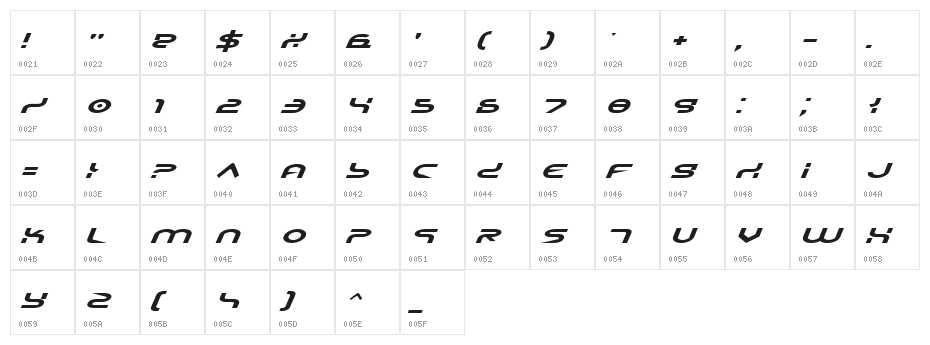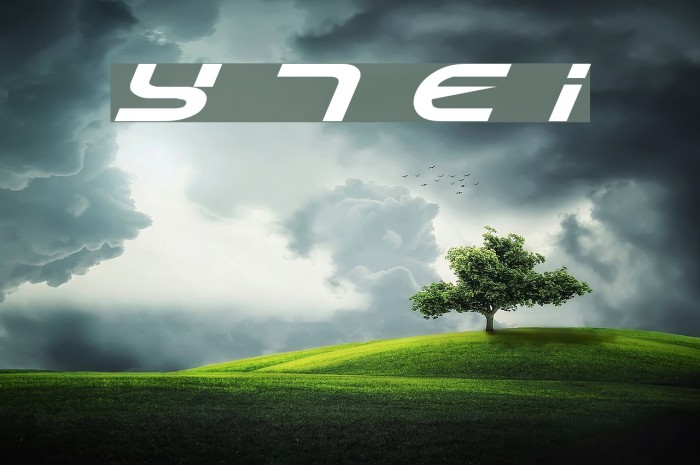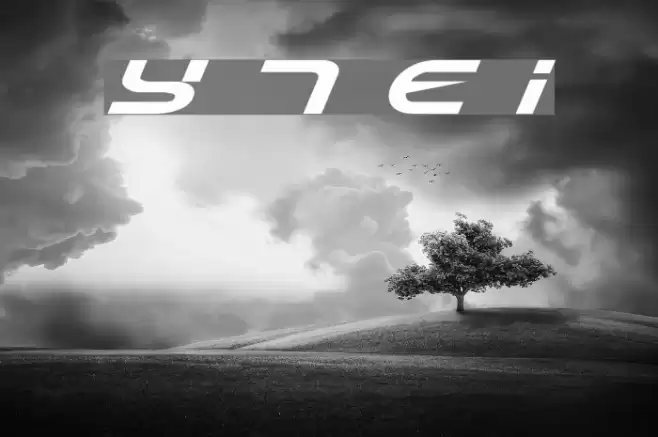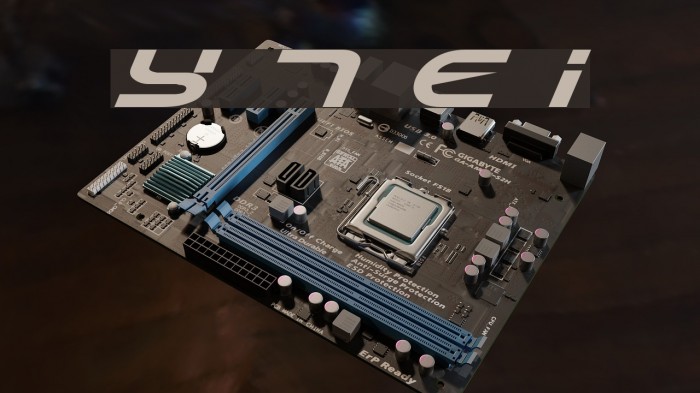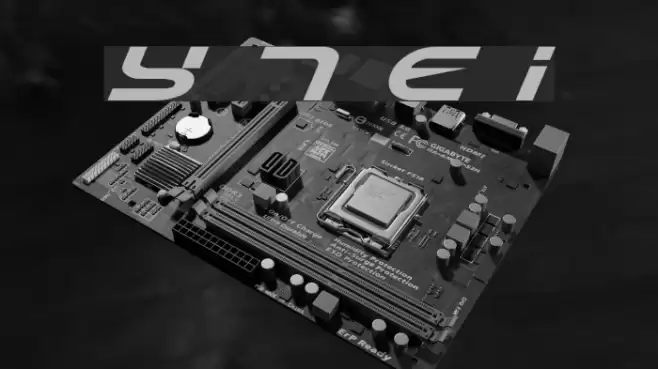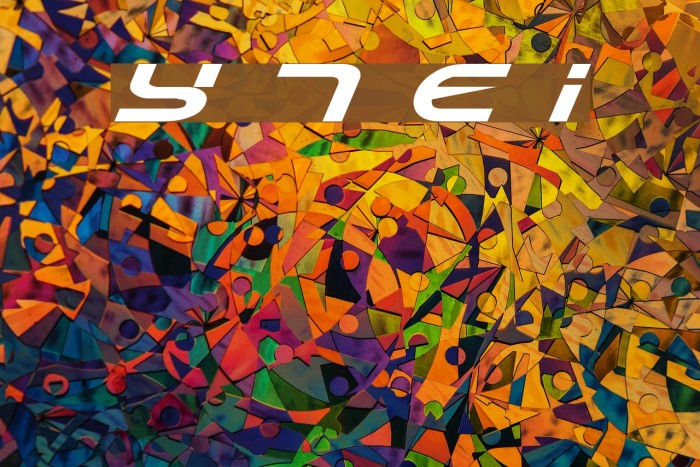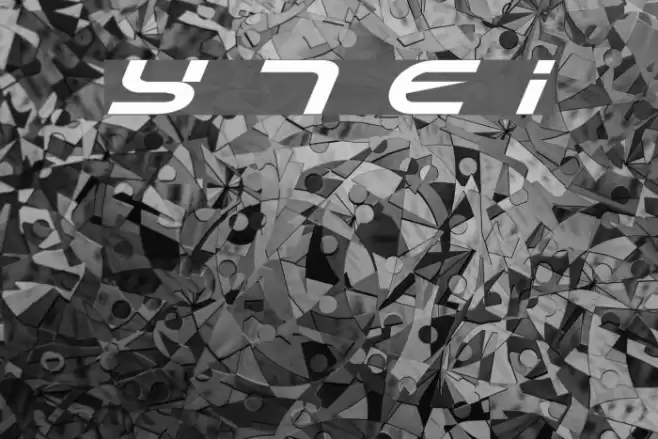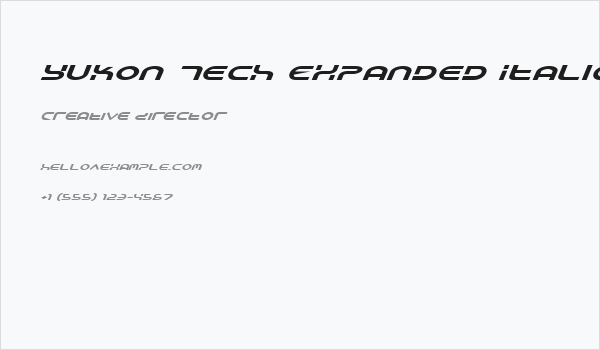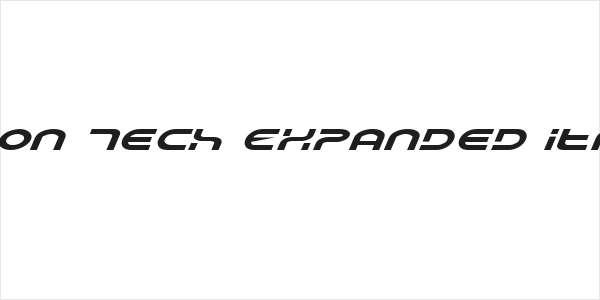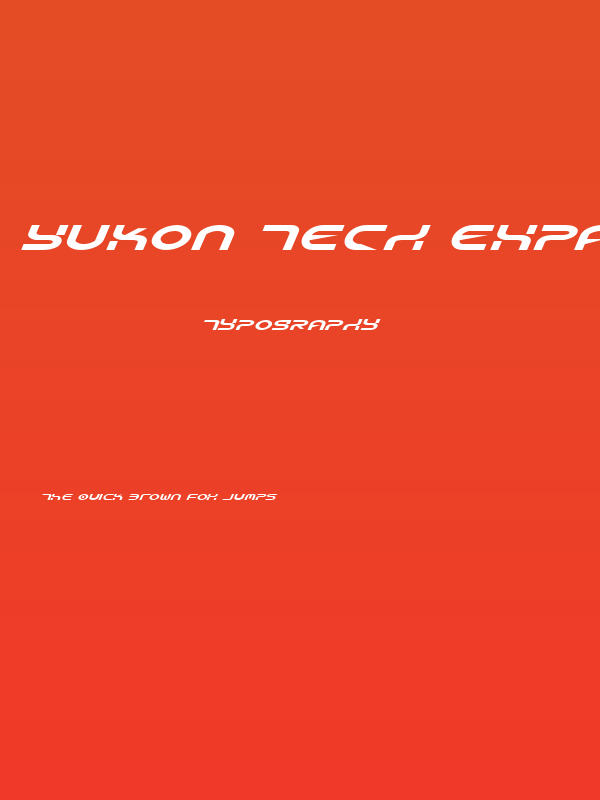
Yukon Tech Expanded Italic Font
Yukon Tech Expanded Italic Description
This font features a futuristic and dynamic design with a distinctly italicized and expanded style. The characters are sleek and angular, giving a sense of motion and speed. The uppercase and lowercase letters maintain a consistent slant, enhancing the italic effect. The numbers and special characters follow the same design principles, ensuring uniformity across all glyphs. The overall appearance is modern and tech-inspired, making it suitable for projects that require a cutting-edge and innovative look.
| Proposed Projects | Ideal for technology branding, sci-fi themed designs, video game interfaces, and modern advertising. |